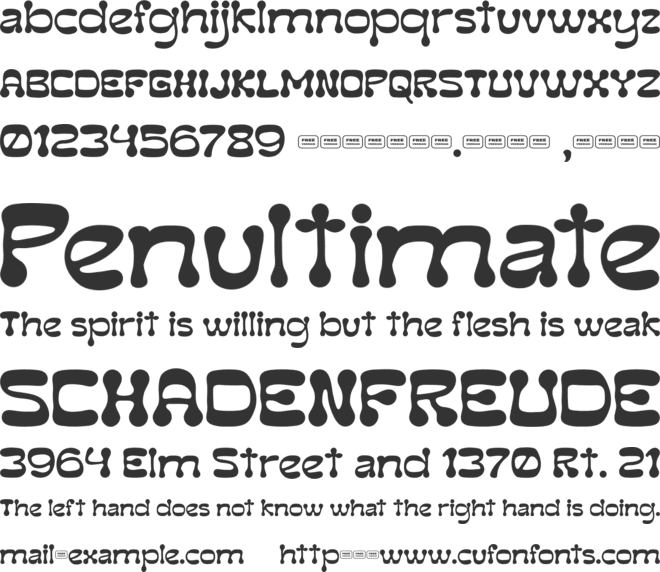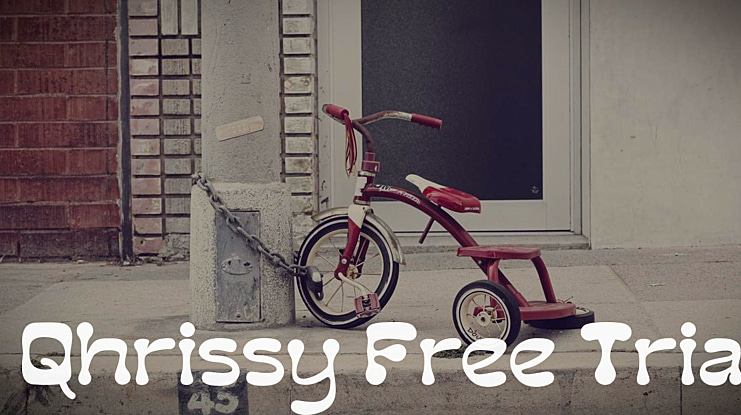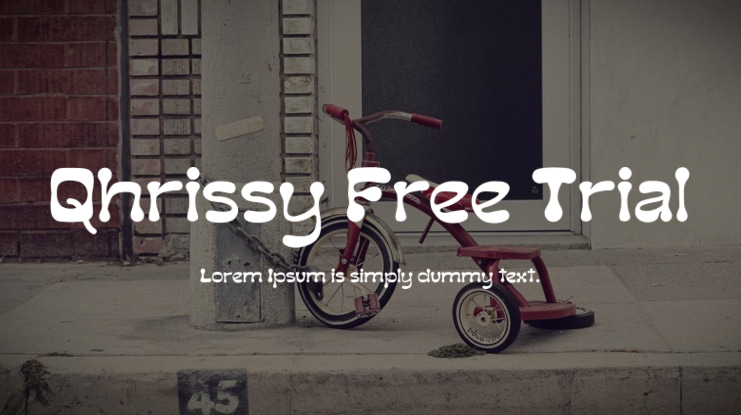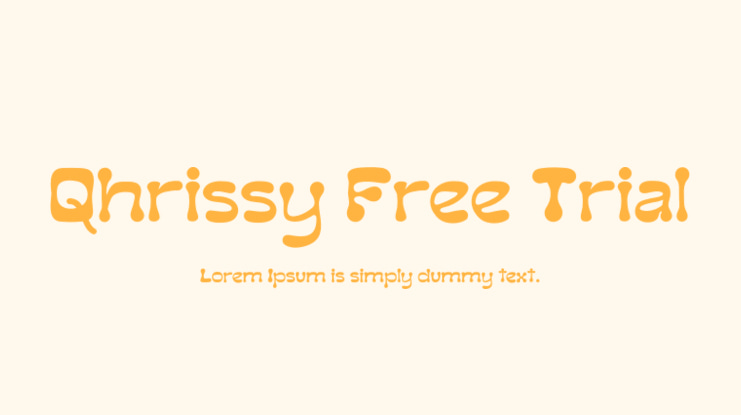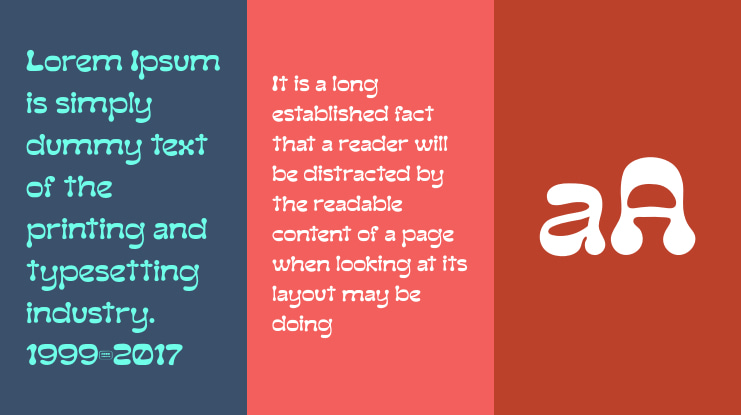
Qhrissy Free Trial Font
Qhrissy is a groovy retro font which will bring you to fun vibes.
This font feels playfully nostalgic and delivers an incredible groovy aesthetic.
Use this great font to add that special touch to any design idea you can think of!